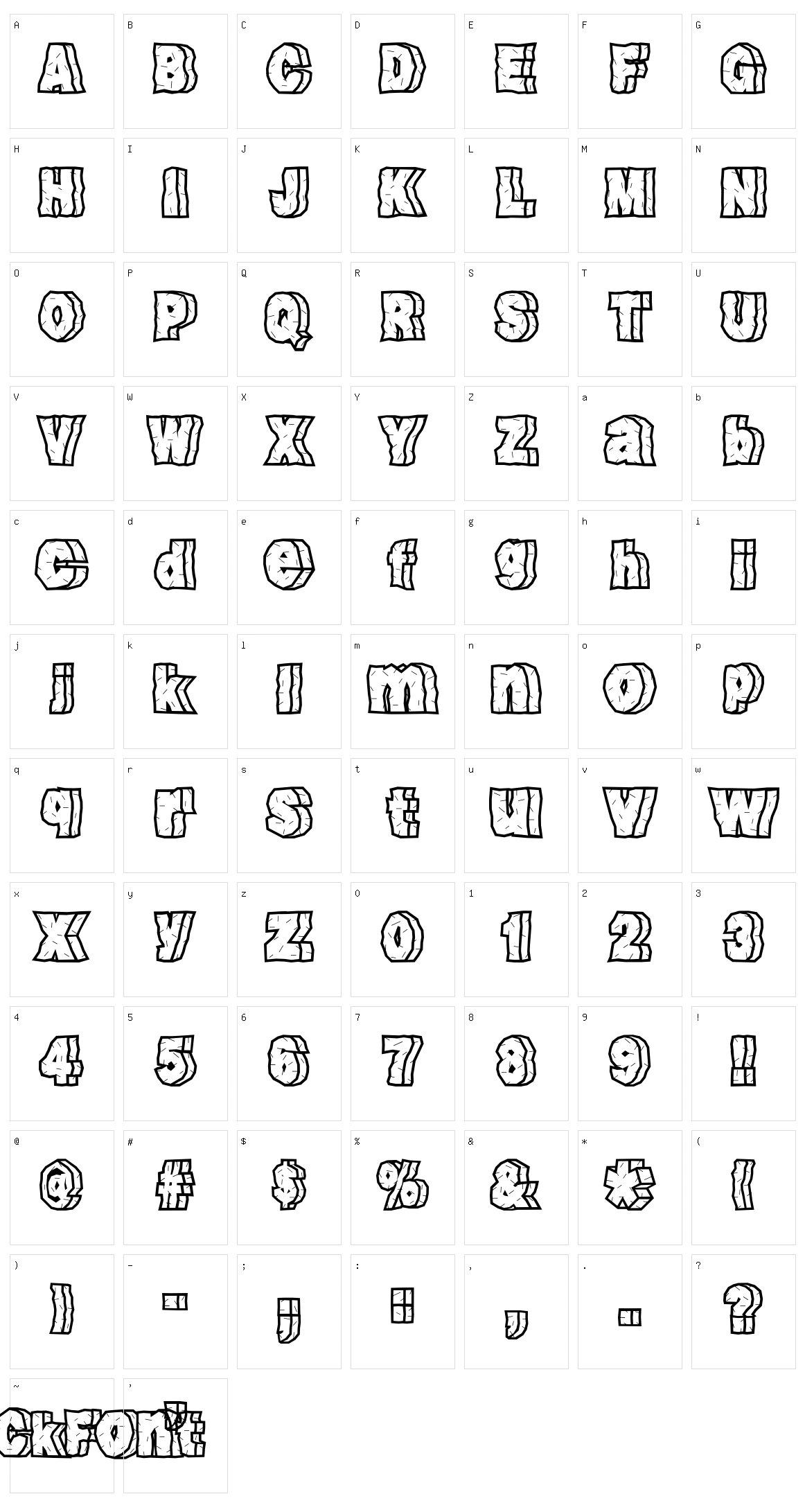
The free font Rock Font is carefully designed by Gaut Fonts, showcasing a thoughtful balance of creativity and usability and falls under the Cartoon font style. When you download the ZIP file, it contains only 41.11 KB of font files, making it lightweight and quick to download. Please review the license details below to understand permitted usage and distribution rights. If license information is not available, we recommend using this font for personal projects only or contacting the author directly for commercial usage permissions.